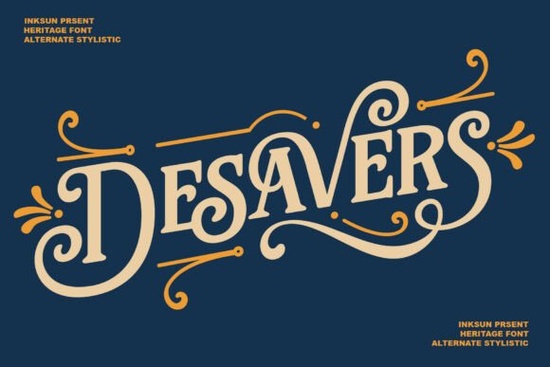
Designers, crafters, and small business owners often look for fonts that can elevate their projects without complicating the process. The Desavers Font is a versatile choice that brings a touch of timeless elegance to any design. With its heritage-inspired style, it’s ideal for everything from logos to magazine layouts. Whether you're working on branding materials or creating eye-catching posters, this font offers a refined look that stands out.
The Desavers Font is a serif typeface that combines classic elements with modern flair. Its bold, high-contrast strokes and artistic alternate features make it perfect for projects that require a premium feel. The graceful curves and dramatic flourishes add a level of sophistication that can transform simple text into something truly special. This font is especially useful when you want to convey professionalism and creativity at the same time.
One of the standout qualities of the Desavers Font is its versatility. It works well in a variety of formats, including book designs, magazine spreads, and digital advertisements. Its clean structure ensures readability while maintaining an elegant appearance. For those who work with multilingual content, this font supports a wide range of characters, making it a reliable option for international projects.
What Makes Desavers Unique?
The Desavers Font is designed with attention to detail, offering a range of stylistic options that allow for creative expression. From uppercase and lowercase letters to numerals, each element is crafted to maintain visual harmony. This makes it easy to use across different design applications without sacrificing quality or consistency.
Who Can Benefit from Using This Font?
Small businesses looking to create a strong brand identity will find the Desavers Font useful for logos, stationery, and marketing materials. Its professional appearance helps establish trust and credibility with customers. Print-on-demand sellers can also benefit from its high-quality design, as it adds a touch of luxury to product labels, packaging, and promotional content.
Creative hobbyists and independent designers will appreciate the font's artistic appeal. It’s great for personal projects like quote cards, greeting cards, and social media graphics. Its ability to convey both tradition and modernity makes it a valuable addition to any designer’s toolkit.
How to Use Desavers in Your Projects
When working with the Desavers Font, consider the context of your project. For example, using it in a headline can draw attention and add visual interest. In body text, it may be best to pair it with a simpler font to ensure readability. Experimenting with different sizes and spacing can help you achieve the desired effect without overwhelming the design.
It’s also helpful to explore the font’s alternate stylistic features. These variations allow for more customization and can help differentiate your work from others. Whether you’re designing a logo or crafting a blog header, the Desavers Font provides the tools needed to create a polished and professional result.
Before finalizing your design, make sure to test the font in different sizes and backgrounds. This helps ensure that it looks good in all contexts. If you're unsure about how to use it effectively, consider reviewing examples from other designers or seeking feedback from peers.
Whether you're a seasoned designer or just starting out, the Desavers Font offers a powerful way to enhance your work. Its combination of elegance and functionality makes it a valuable resource for a wide range of creative projects.
Checklist for Using Desavers Font:
- Test the font in different sizes and layouts
- Pair it with complementary fonts for balance
- Explore stylistic alternates for added creativity
- Review how it looks on both screen and print